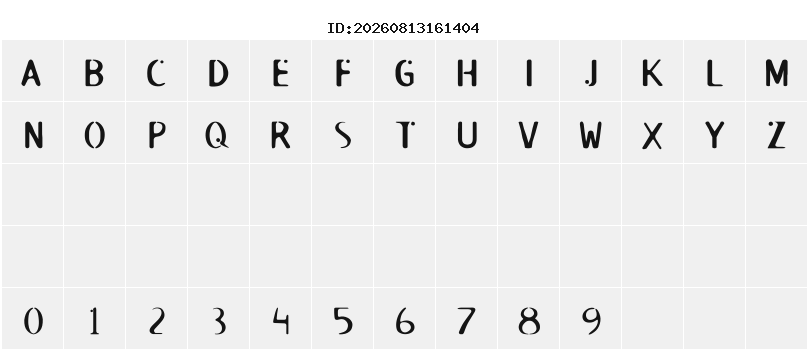
• Font Name: ROSWELL
• Full Font Name: ROSWELL
• Designer: FBI, posts under that name at www.fanforum.com in the ROSWELL board
• Description: This font was created from the opening credits of the TV show Roswell (on the WB network)
About ROSWELL.ttf
ROSWELL.ttf is a modern, elegant sans-serif font designed for ultimate readability and visual harmony. Perfect for branding, headlines, web design, and print materials.